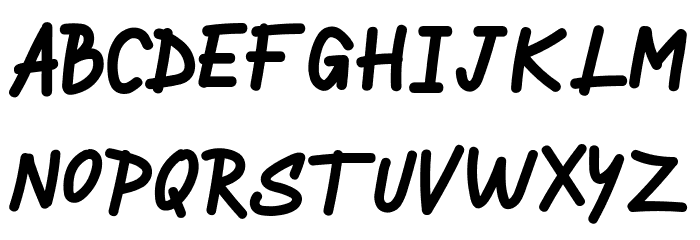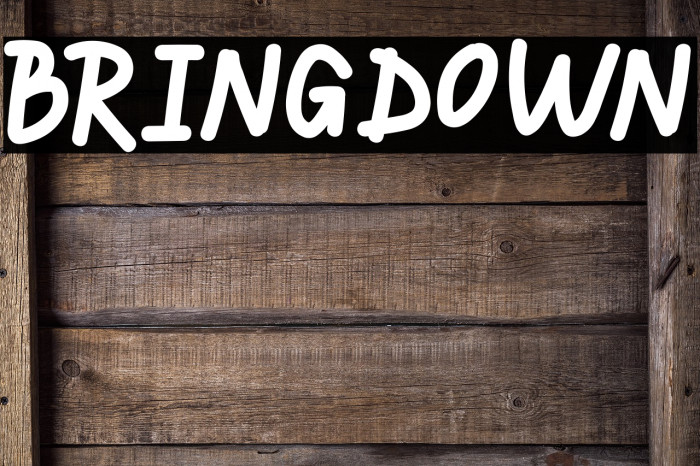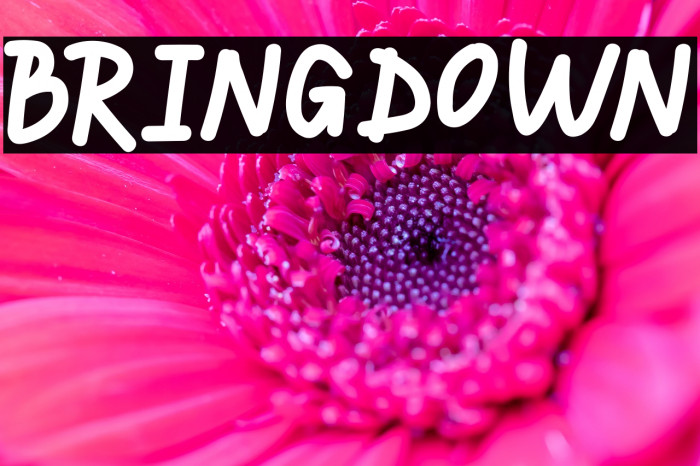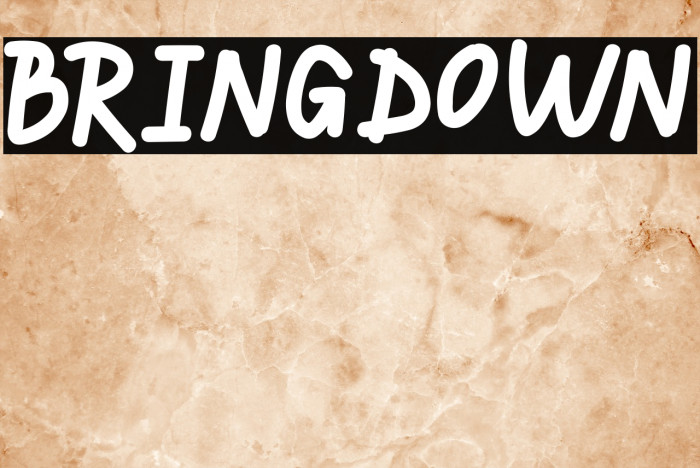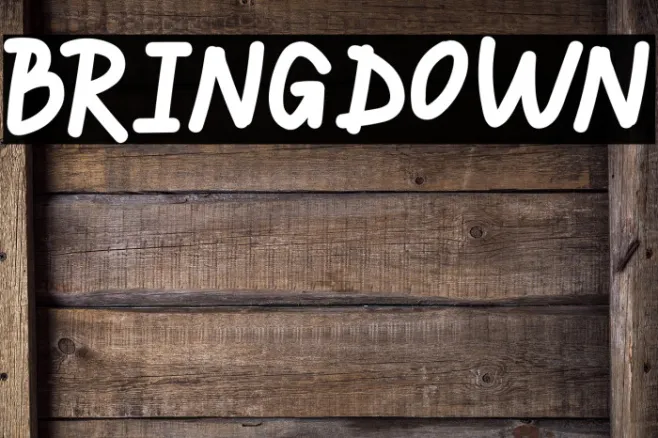
BRINGDOWN Font
This font features a playful and dynamic handwritten style, characterized by its fluid and slightly slanted letterforms. The uppercase letters are bold and expressive, with a consistent stroke width that adds to its casual yet confident appearance. The lowercase letters maintain the same energetic flow, creating a harmonious balance between the two cases. Numbers are clear and legible, with a similar handwritten aesthetic that complements the alphabet. Special characters are designed with the same attention to detail, ensuring they blend seamlessly with the rest of the font. Overall, this font exudes a sense of creativity and spontaneity, making it ideal for projects that require a personal touch.
A playful and dynamic handwritten font with fluid, slightly slanted letterforms.
- Proposed Projects: Ideal for greeting cards, invitations, personal branding, and creative projects that require a personal touch.
- Overall Style: Casual, Creative
- Use Case: Headlines, Logos, Invitations